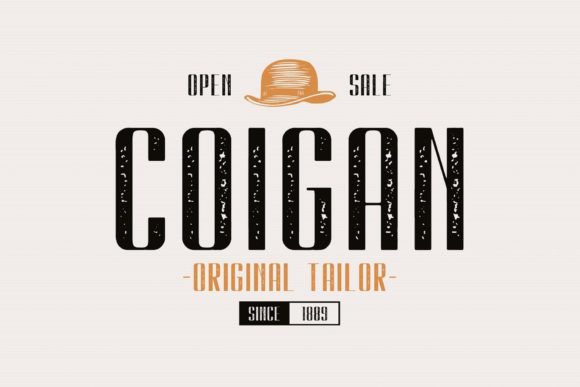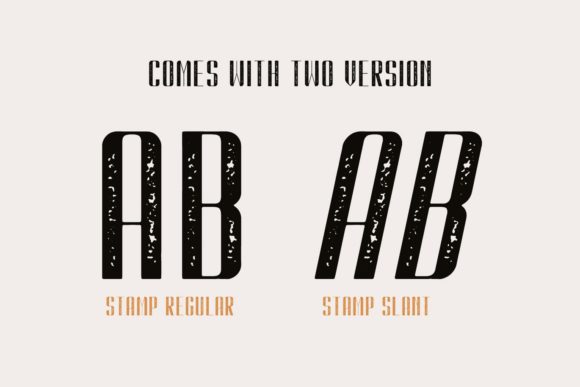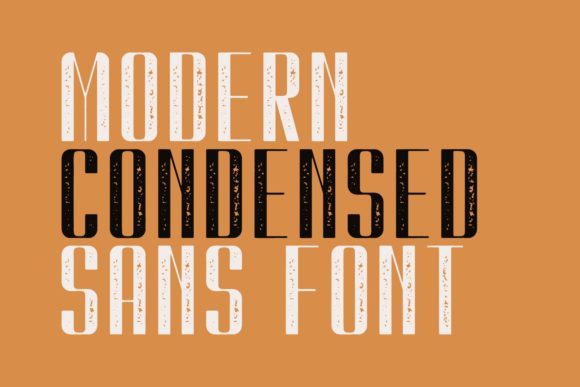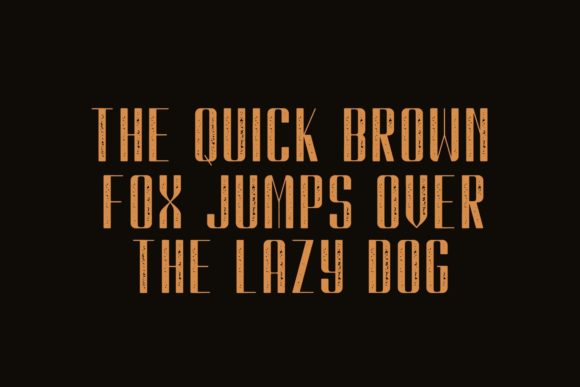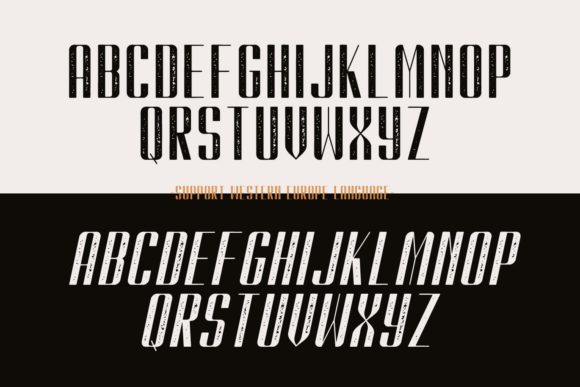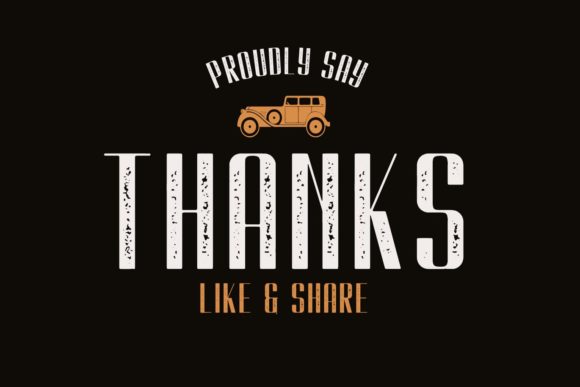
Introduction to Kionsa Stamp Font
Kionsa Stamp feels playfully nostalgic and delivers an incredible vintage aesthetic.
Use this display font to add that special retro touch to any design idea you can think of .
Key Features of Kionsa Stamp Font
Why Choose Kionsa Stamp Font?